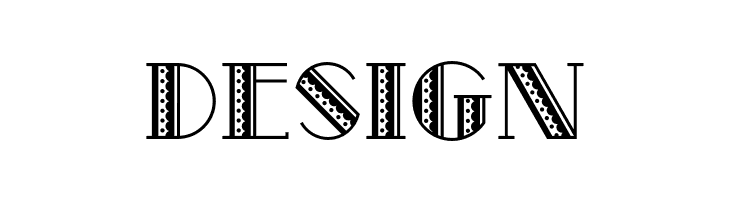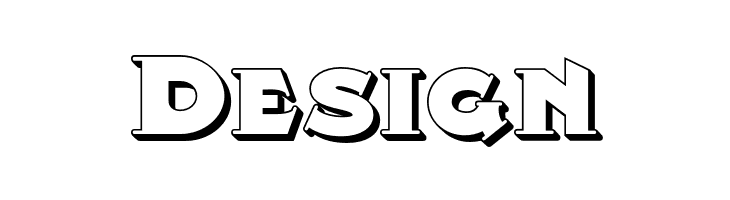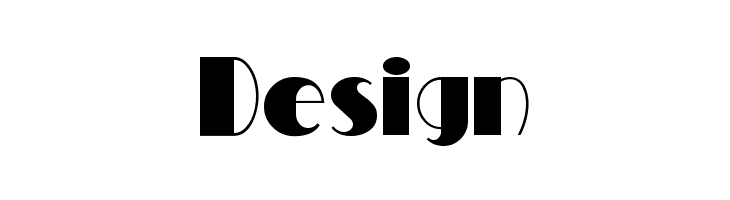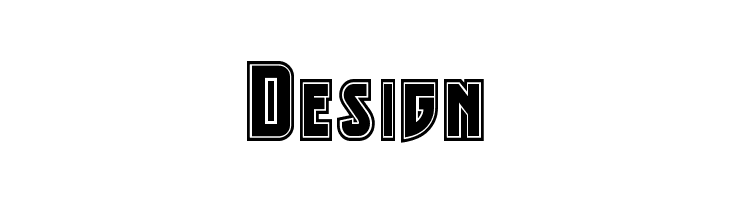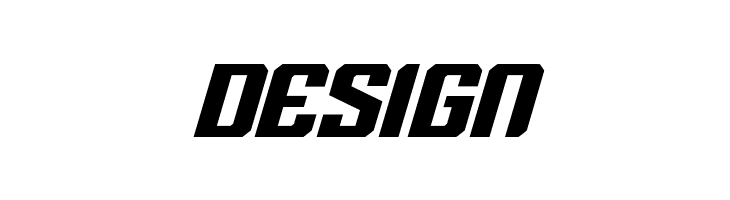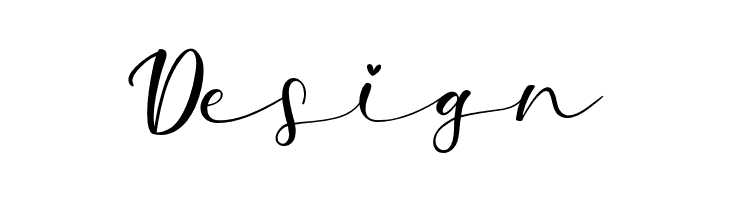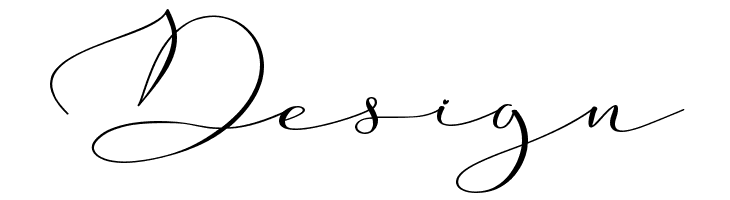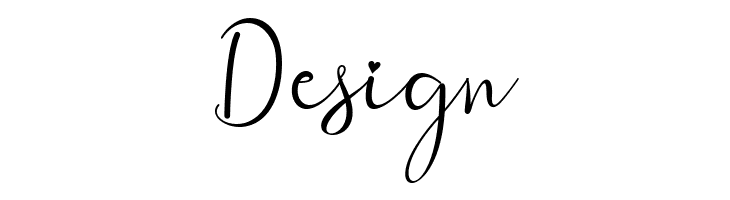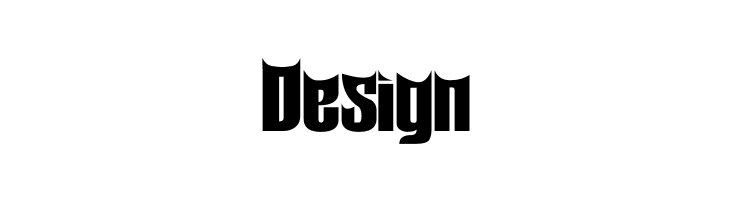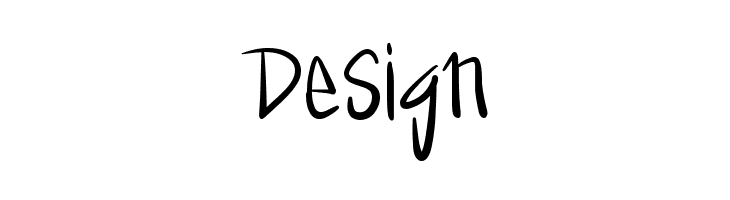
A bold, monospaced font with a clean and modern design, perfect for coding.
A bold, italic, monospaced font with a modern and clean design.
A clean, monospaced italic font with medium contrast and modern appeal.
A clean, modern monospaced font ideal for coding and technical documentation.
A decorative font featuring intricate, tribal-inspired glyphs of animals and mythical creatures.
A decorative set of glyphs inspired by Mesoamerican fauna, featuring intricate and bold designs.
A bold graffiti-style font with dynamic, energetic characters.
Expressive, bold handwritten font with energetic strokes.
A jagged, edgy font with sharp, irregular strokes and a hand-drawn feel.
A bold, jagged font with a heavy metal aesthetic and dynamic, aggressive style.
A bold, angular font with a dynamic, forward-leaning style.
A decorative font with retro and modern influences, featuring bold geometric shapes and intricate patterns.
A bold, geometric font with decorative circular elements.
A bold, decorative font with retro patterns and intricate detailing.
A bold, futuristic font with geometric and abstract elements.
A bold, textured font with a vintage, handcrafted feel.
A bold, outlined font with a fantasy-inspired, geometric style.
Decorative medieval-themed pictorial font with detailed character illustrations.
A bold, decorative font with a fantasy-inspired, angular design.
A lively, expressive handwritten font with fluid strokes and dynamic movement.
A bold, geometric font with vintage railway-inspired design.
A bold, shadowed font with a vintage yet modern aesthetic.
A bold, shadowed font with a vintage flair, perfect for standout headlines.
A whimsical, curly font with playful loops and flourishes.
A fluid and elegant handwritten script font with a dynamic flow.
A whimsical and elegant script font with flowing, interconnected letters.
A graceful and elegant script font with flowing, connected strokes.
A graceful, cursive script font with elegant, flowing letters.
A bold, theatrical font with dramatic curves and vintage flair.
A bold, Art Deco-inspired font with high contrast and geometric shapes.
A bold, angular font with a strong, dynamic presence and cultural flair.